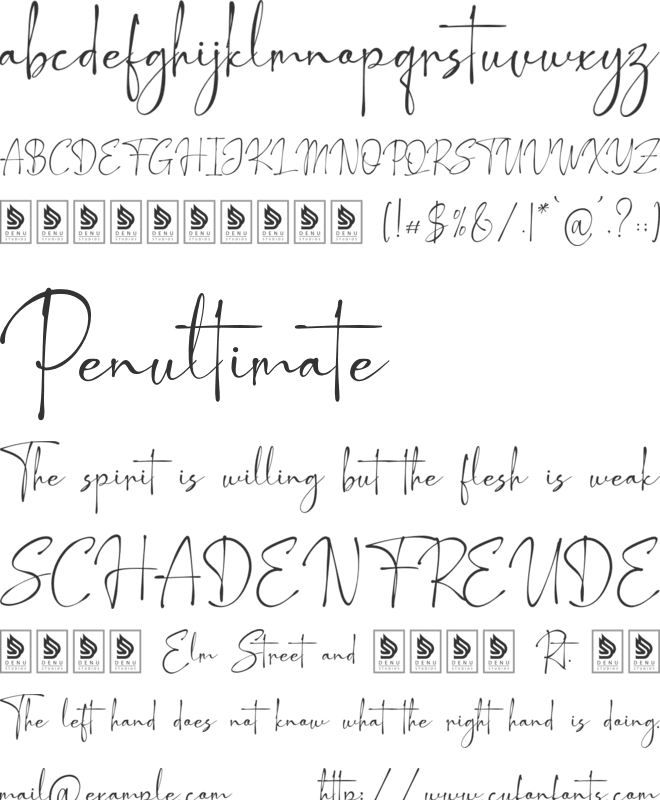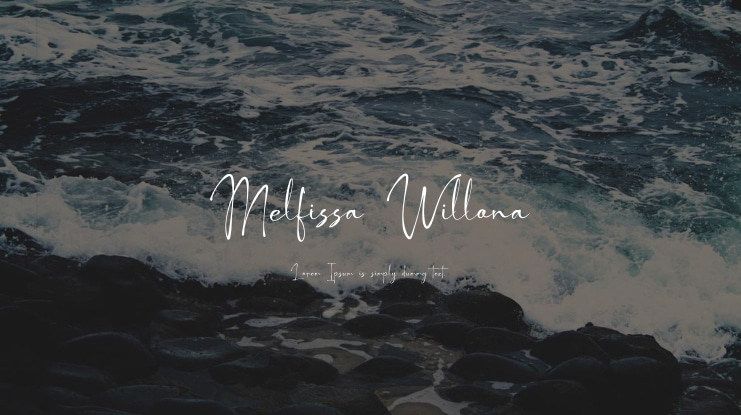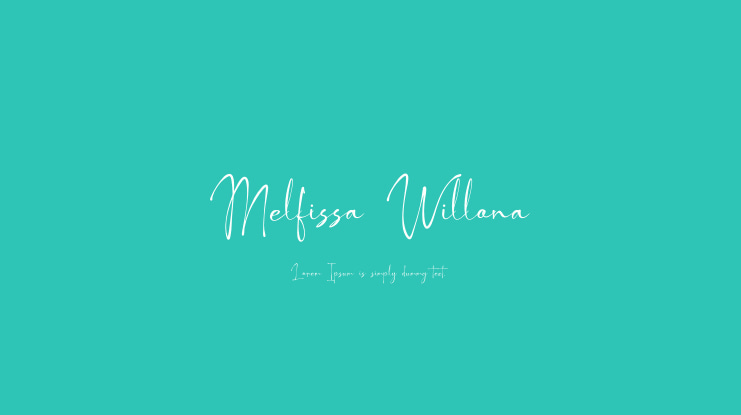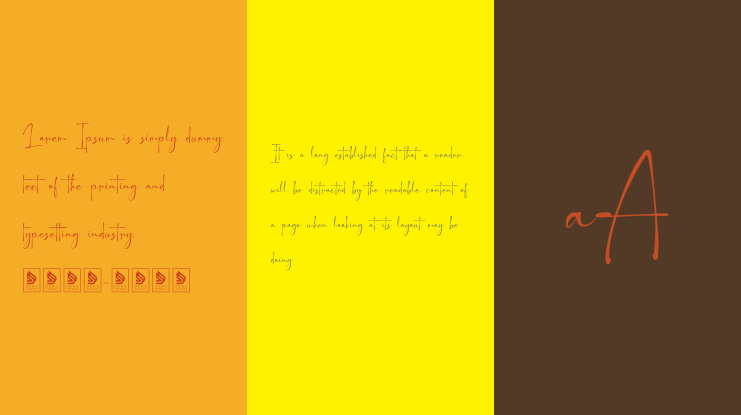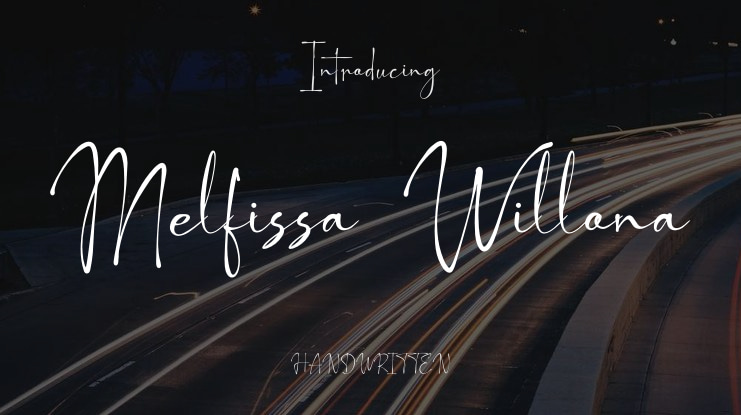
Melfissa Willona Font
Melfissa Willona | Casual Chic Font is suitable for any projects such as: logos, branding projects, homeware designs, product packaging, mugs, quotes, posters, shopping bags, t-shirts, book covers, name card, invitation cards, greeting cards, label, photography, watermark, special events, and all your other lovely projects that need a beautiful script taste.